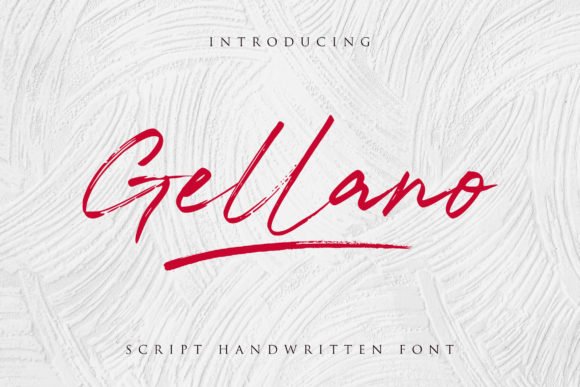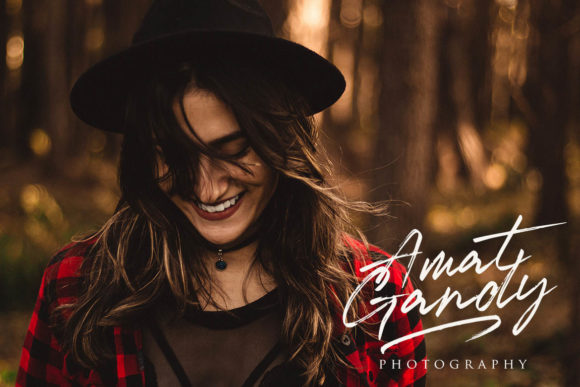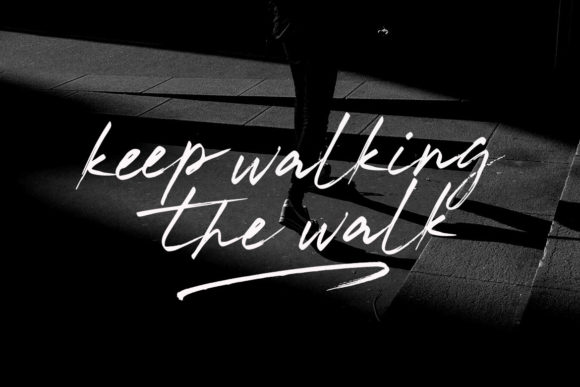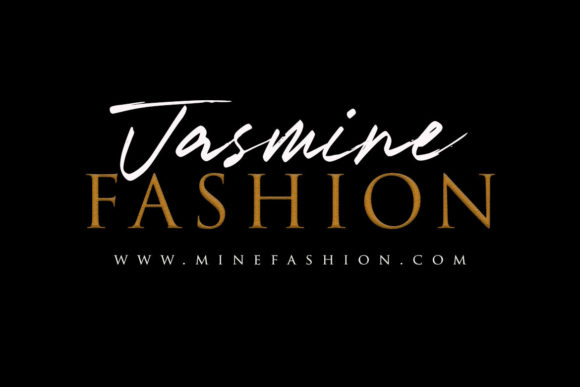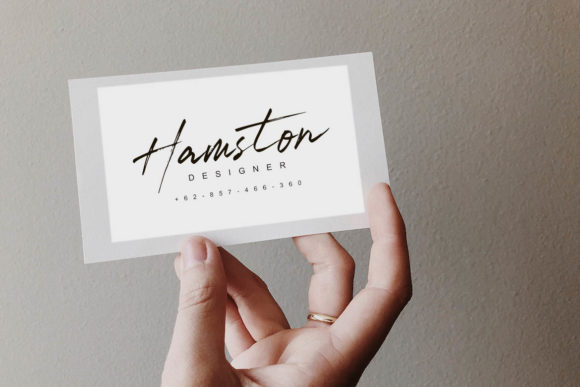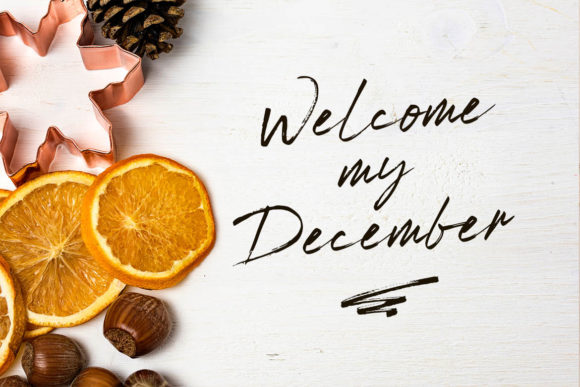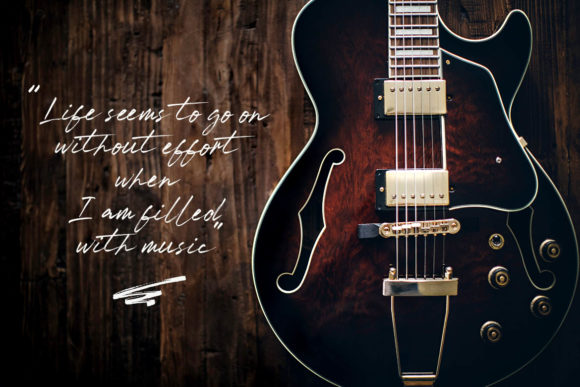
The Perfect Brush for Your Creative Masterpiece
Have you ever been stuck on a design project, staring blankly at your computer screen, trying to come up with the perfect font to capture the essence of your brand? We’ve all been there. The moment of creative clarity finally hits, and you know exactly what you need – a font that exudes warmth, playfulness, and a touch of elegance.
Enter Gellano Font, a charming casual brush script font designed to make your designs shine. Whether you’re creating logos, product packaging, photography, or branding materials, Gellano Font is the perfect companion to bring your vision to life. With its versatility and charm, this font is a valuable addition to any designer’s toolkit, allowing you to create unique and captivating designs that stand out from the crowd.
Gellano Font Key Features
- Unique Characteristics: The font features a unique blend of modern and vintage elements, with subtle texture and ornate details that give it a distinctive, elegant look.
- Font Width: The font has a medium to wide width, making it suitable for headings, titles, and other display text where a clear, bold look is desired.
Gellano Font Review
Overall, I found the Gellano Font to be a solid choice for various design projects. Here’s what I think works well:
- ✨ Unique and playful style that adds character to any design
- ✨ Excellent legibility, making it suitable for body text and headings
- ⚠️ Limited font weights, which may not be ideal for designs that require multiple font weights
- ⚠️ Not as extensive a character set as some other fonts, which may be a concern for designers who need to include special characters
Overall, I would say that the Gellano Font is a great choice for designers who want a unique and playful font for their projects. While it may have some limitations, its strengths make it a solid option for a wide range of designs.
Tips for Getting the Most Out of Gellano Font
Use Gellano Font to create a unique and eye-catching design.
Pair Gellano Font with other fonts to create a visually appealing combination.
Experiment with different font sizes, styles, and colors to achieve the desired effect.
Gellano Font is ideal for creating bold and modern designs, such as:
Business cards and brochures
Marketing materials and social media graphics
Headings and titles in presentations and documents
Alternatives to Gellano Font for Designers
Lato is a modern sans-serif font designed by Łukasz Dziedzic. It is highly legible and suitable for both body text and headings. Lato is a great alternative to Gellano Font for designs that require a clean and minimalist look. Compared to Gellano Font, Lato has a more neutral tone and is more versatile in terms of font sizes and styles.
Open Sans is a popular sans-serif font designed by Steve Matteson. It is highly legible and works well for both digital and print designs. Open Sans is a great alternative to Gellano Font for designs that require a friendly and approachable tone. Compared to Gellano Font, Open Sans has a more rounded feel and is more suitable for body text.